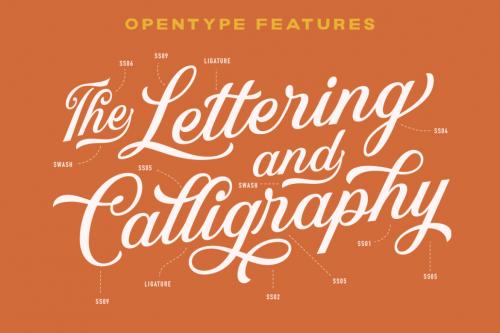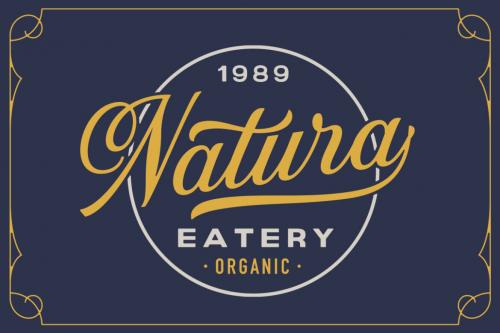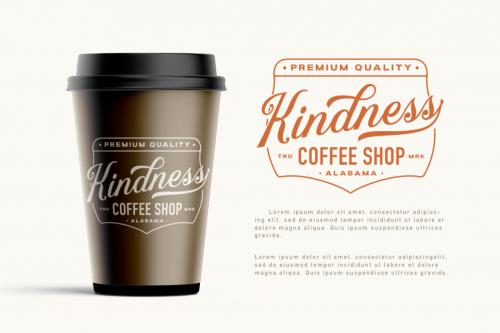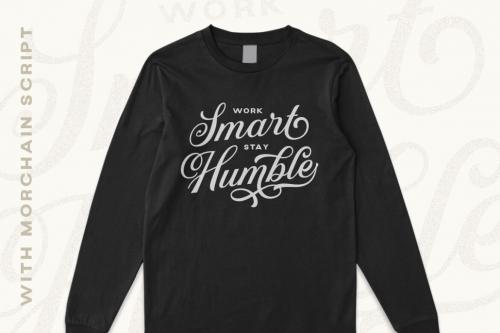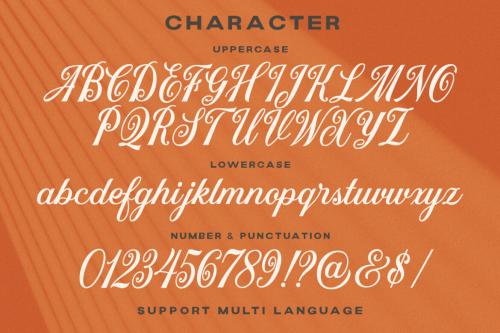
Morchain is a classy script. This typeface has nostalgic feel because of its style, so the font is really match for your project with classicu002Fvintage theme. T This font perfectly made to be applied especially in logo, and the other various formal forms such as invitations, labels, logos, magazines, books, greeting u002F wedding cards, packaging, fashion, make up, stationery, novels, labels or any type of advertising purpose.